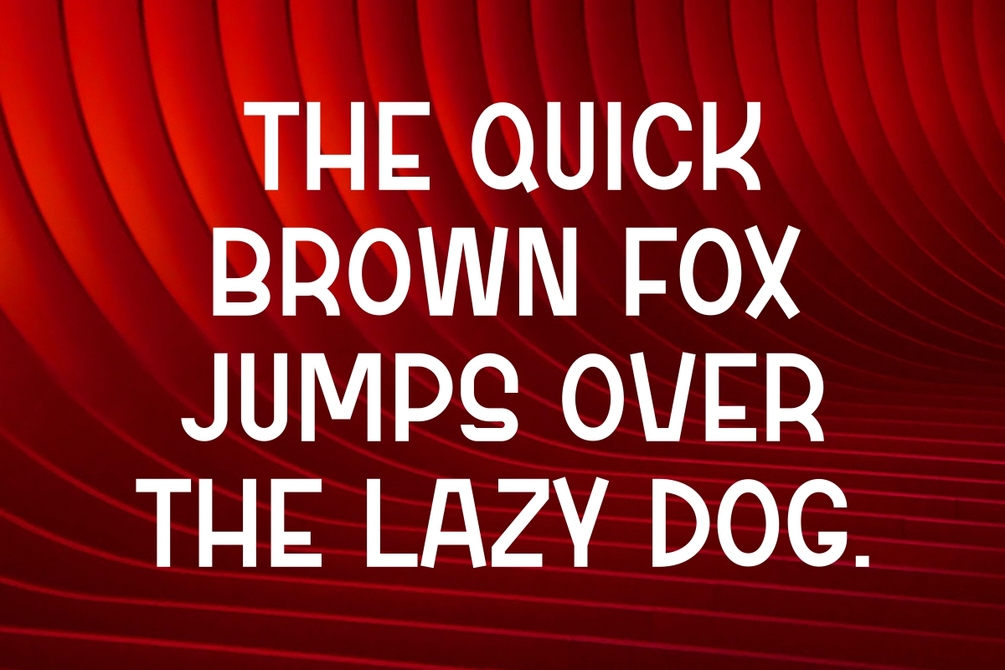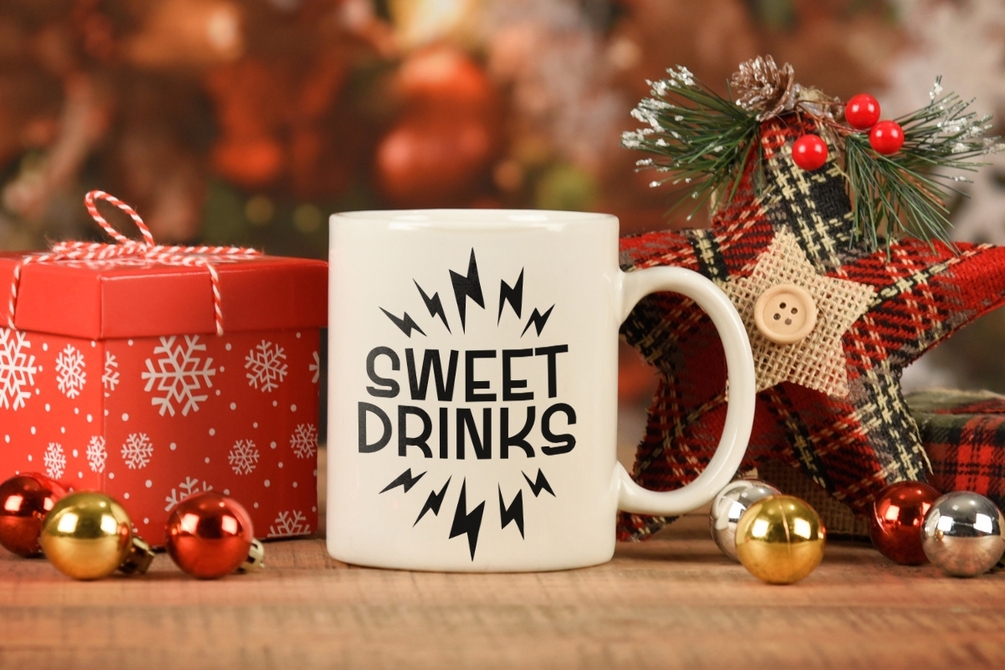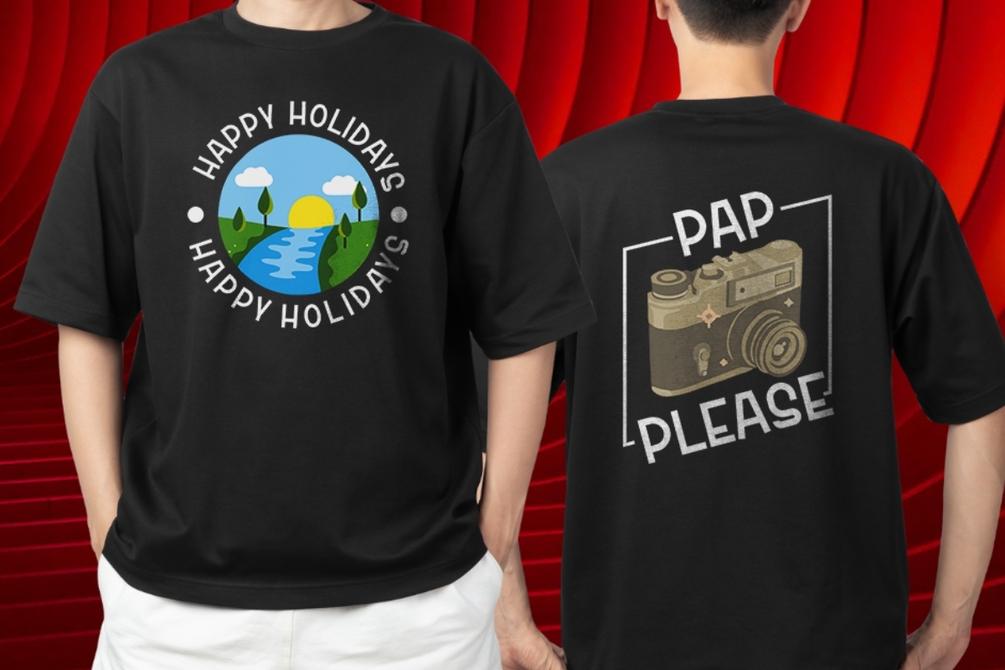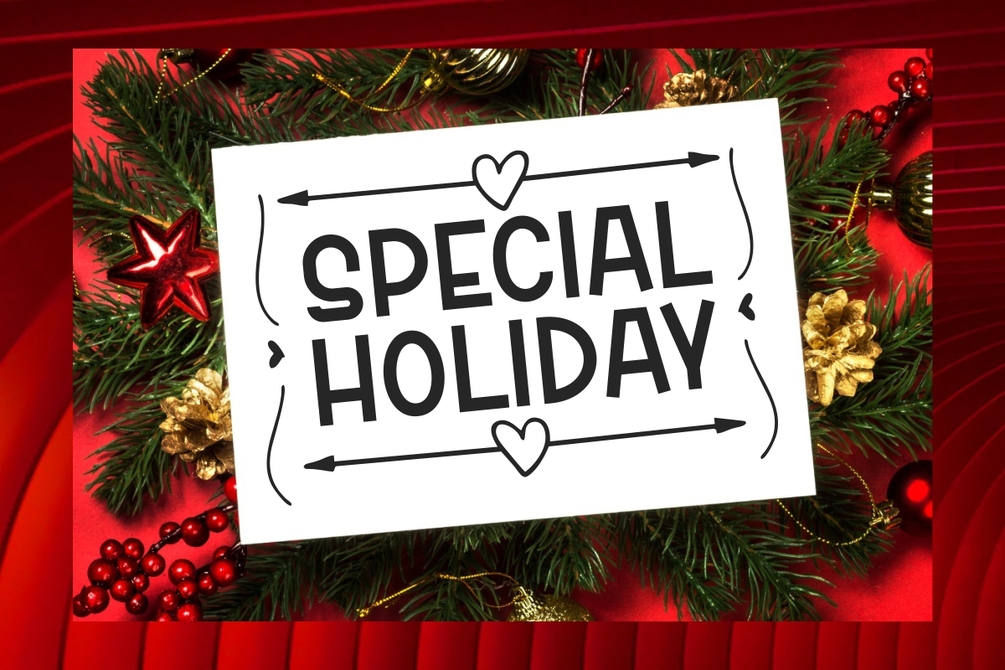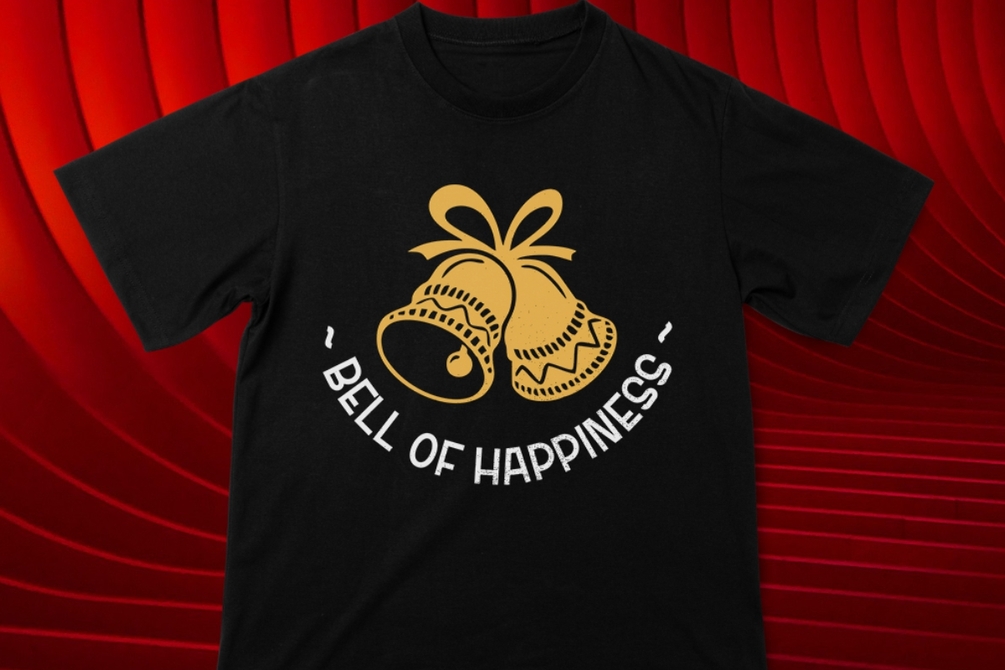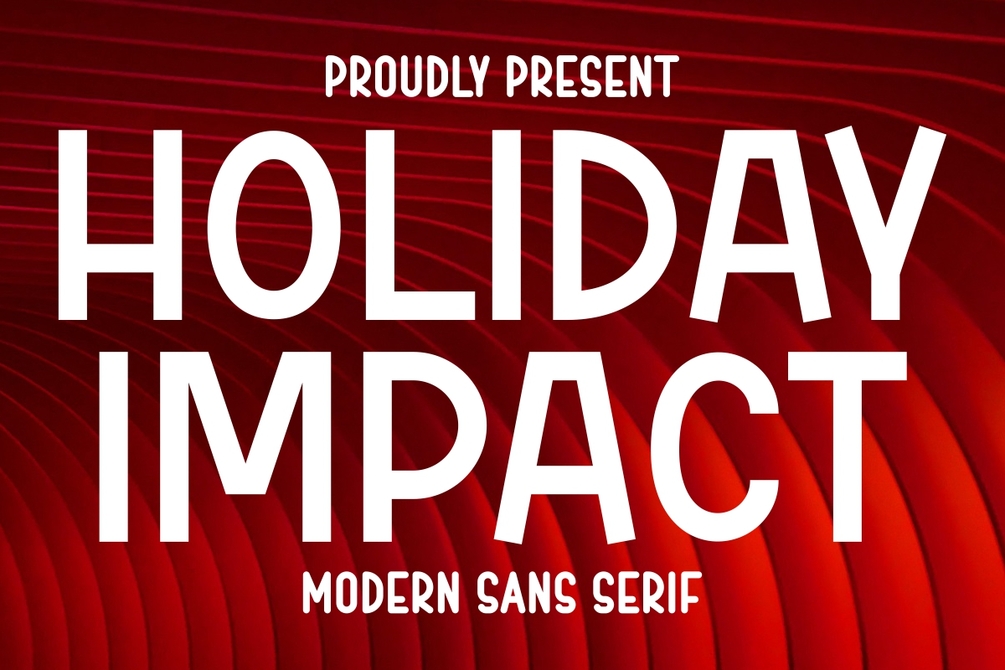
Holiday Impact - Modern Display Font
Holiday Impact is a modern sans serif font, adorned in a classic and rich red hue, is meticulously crafted to make a lasting impression on your holiday creations.